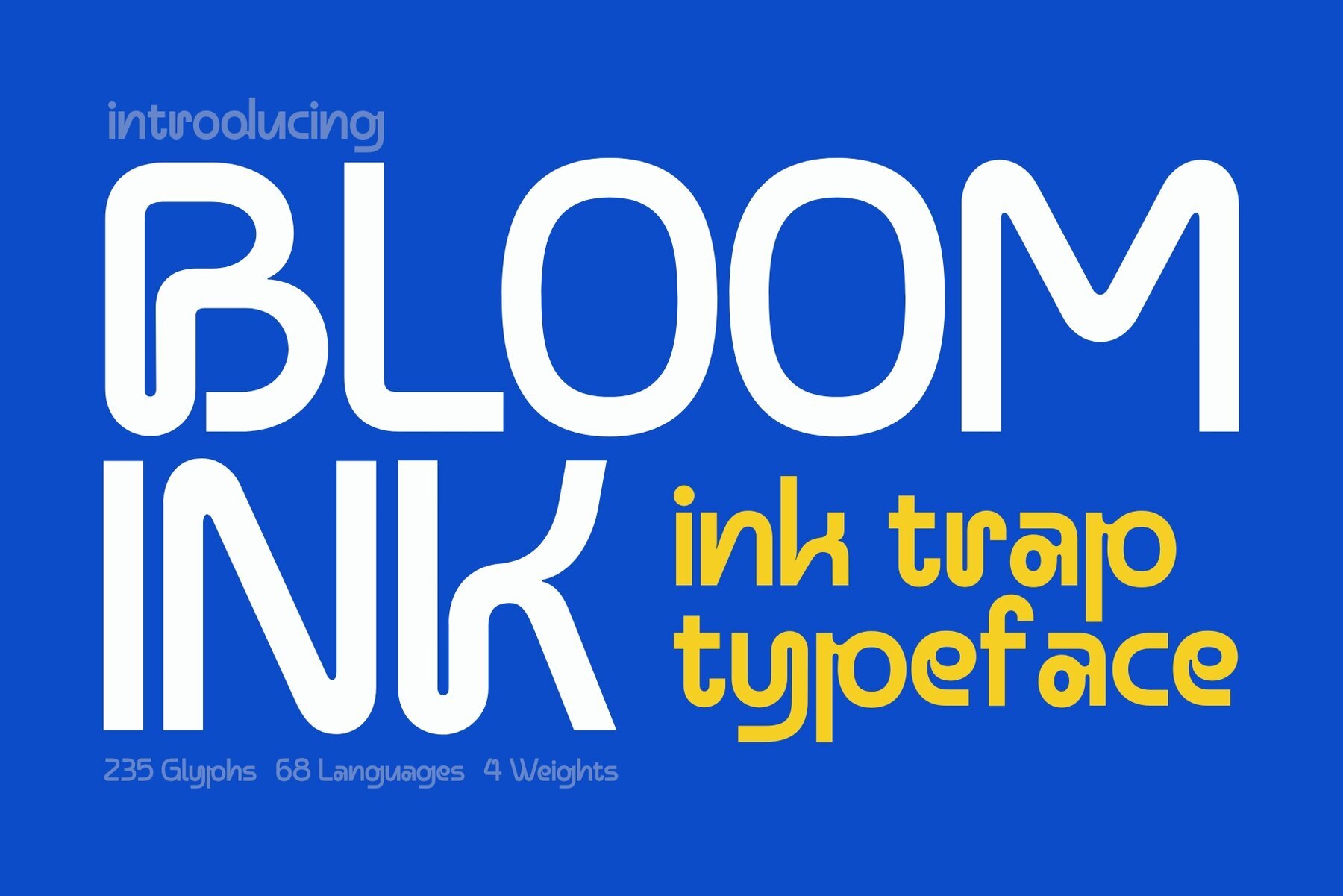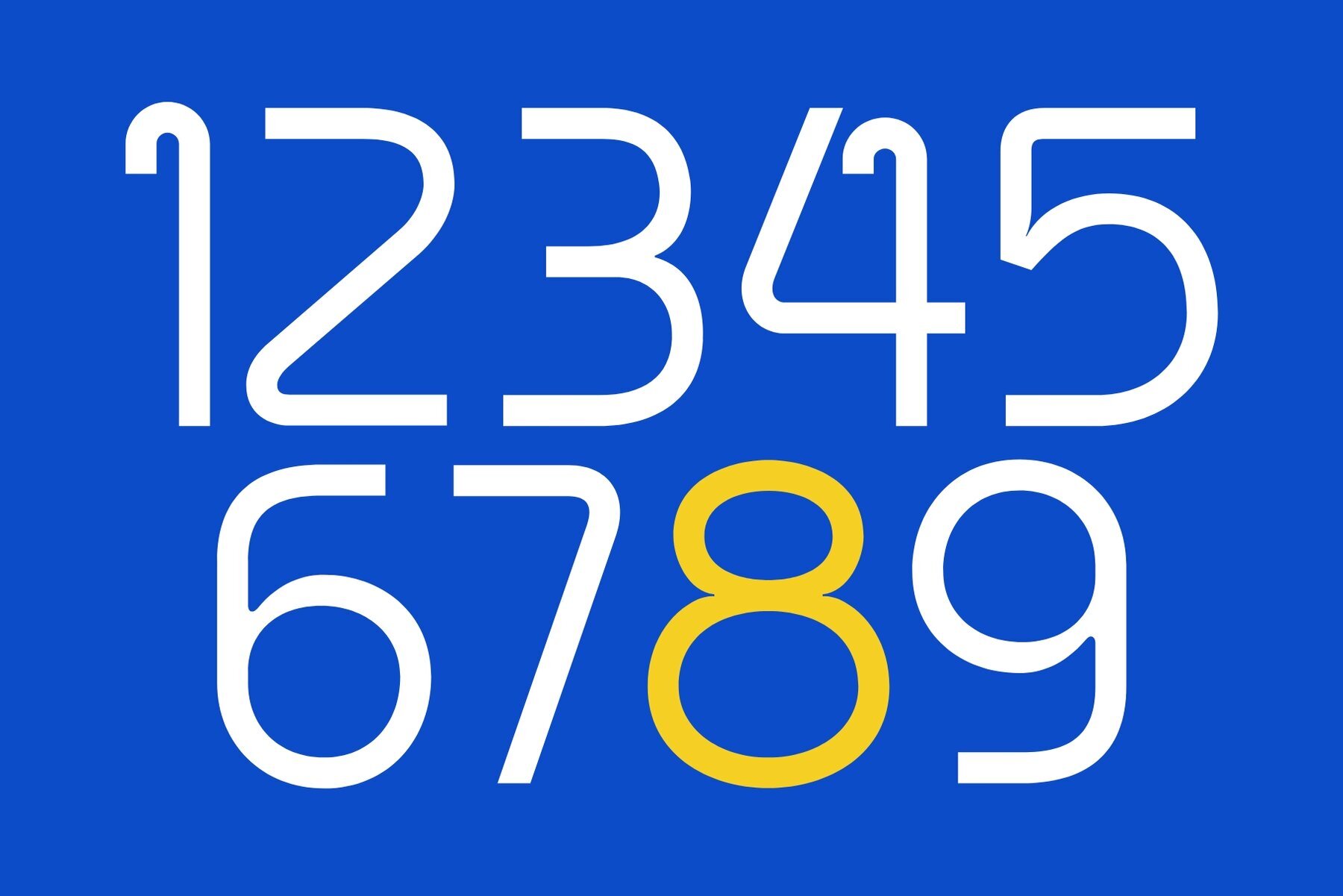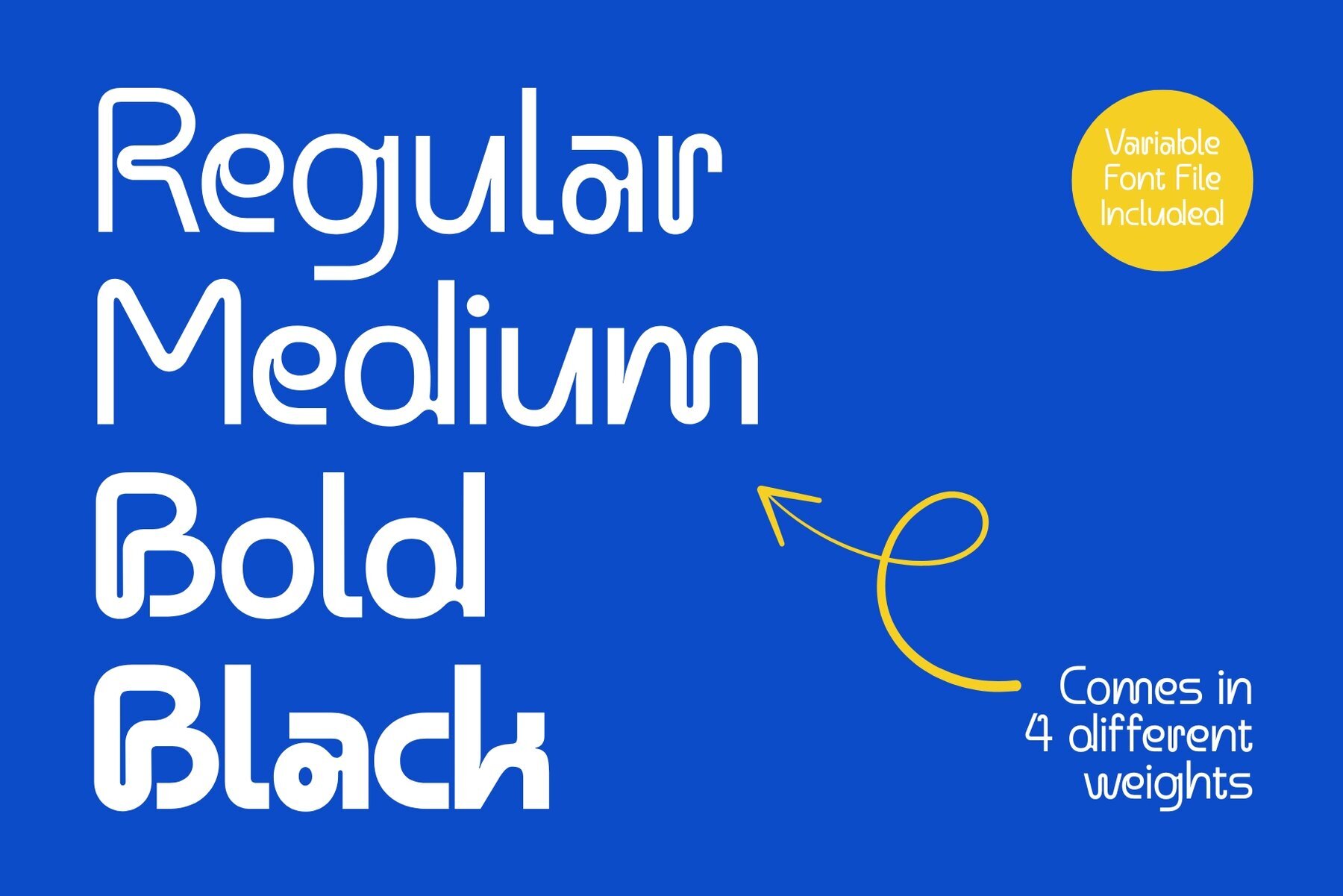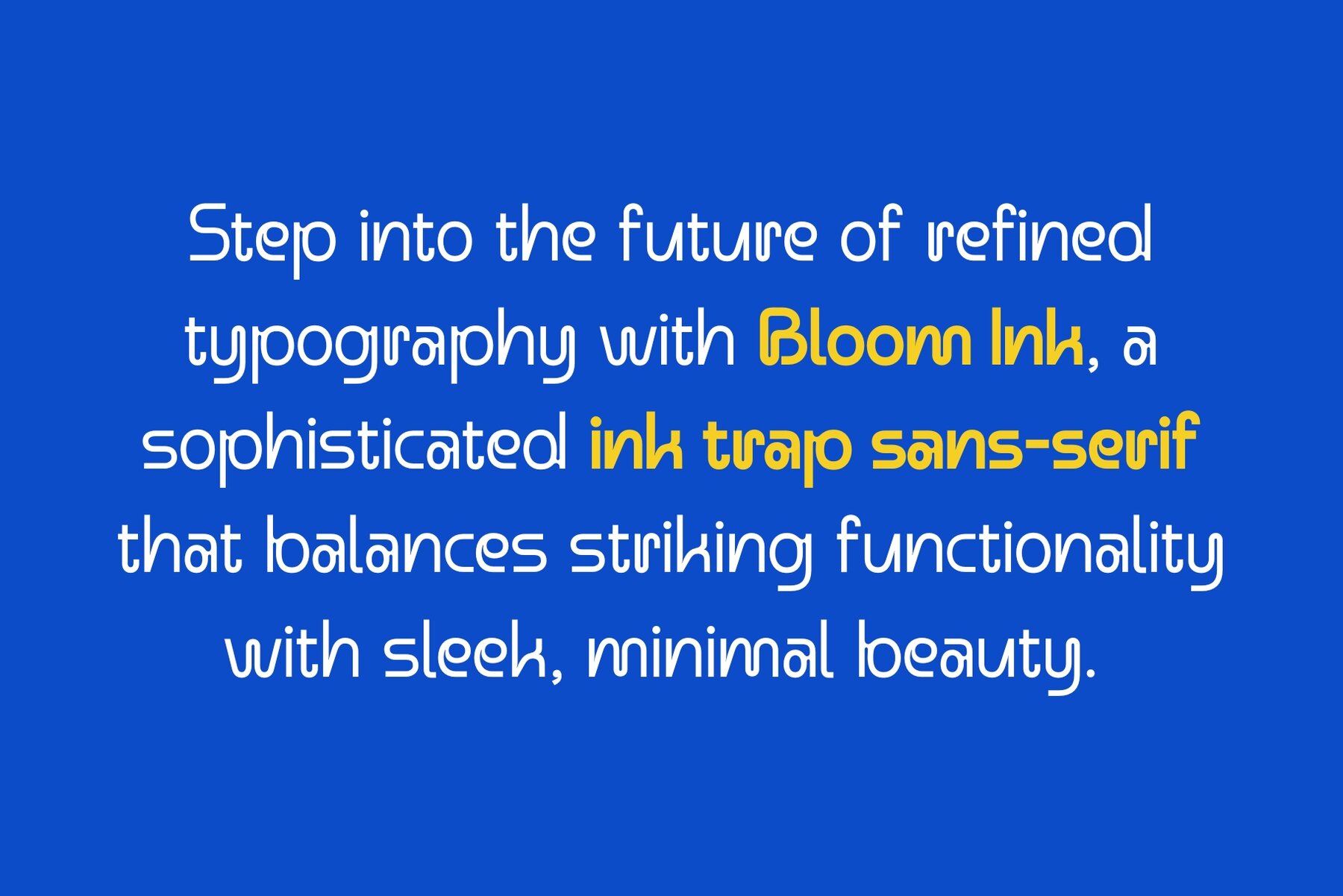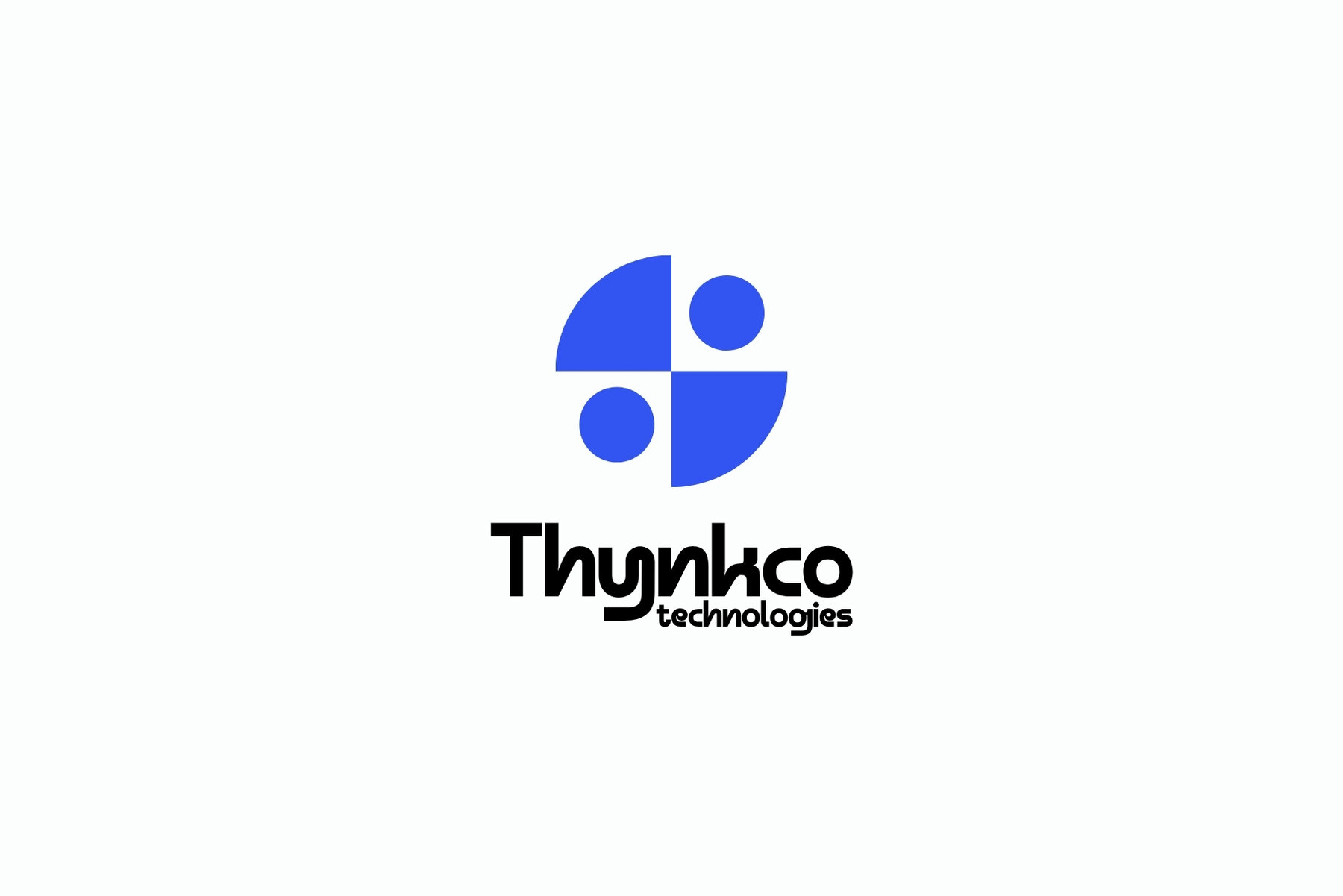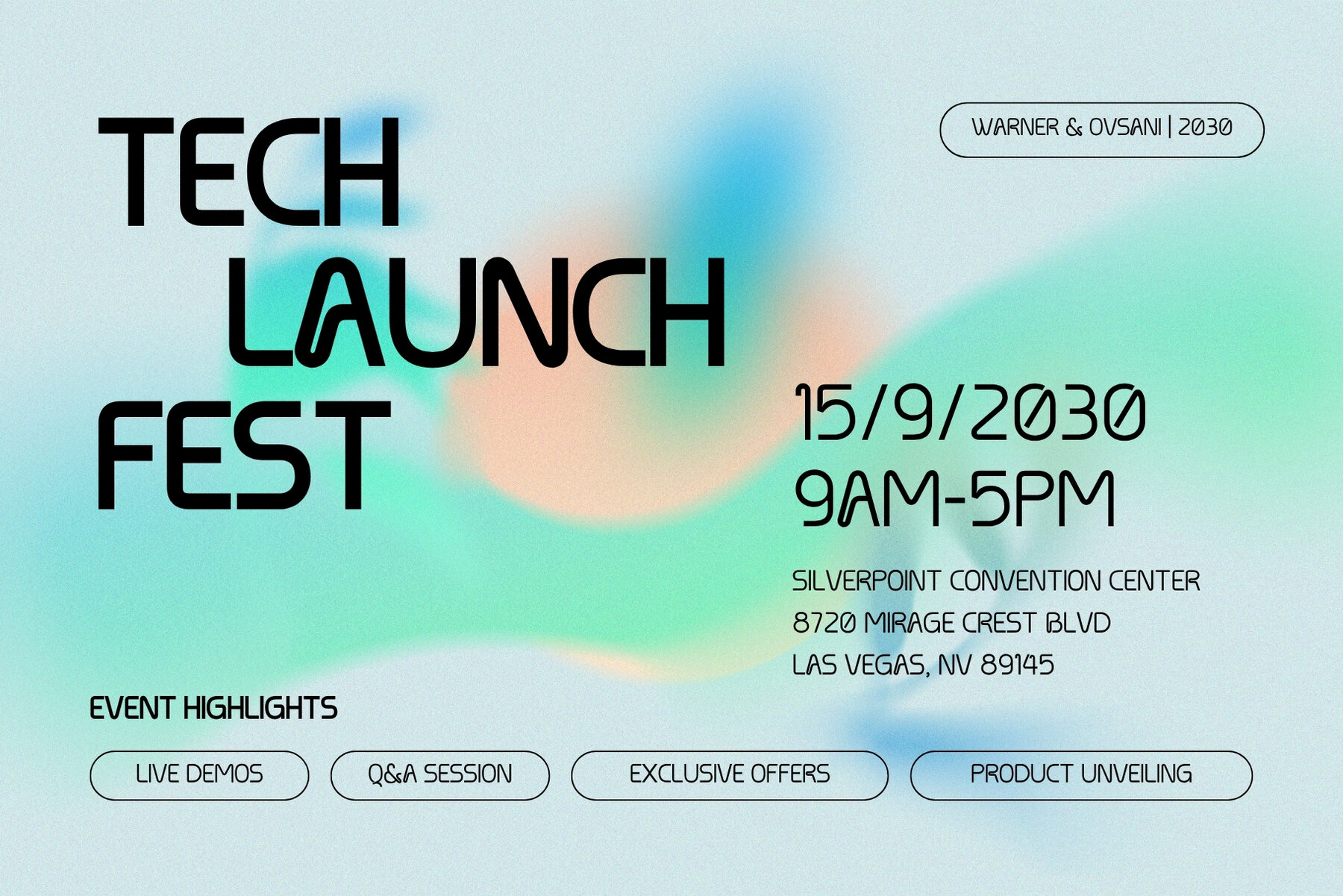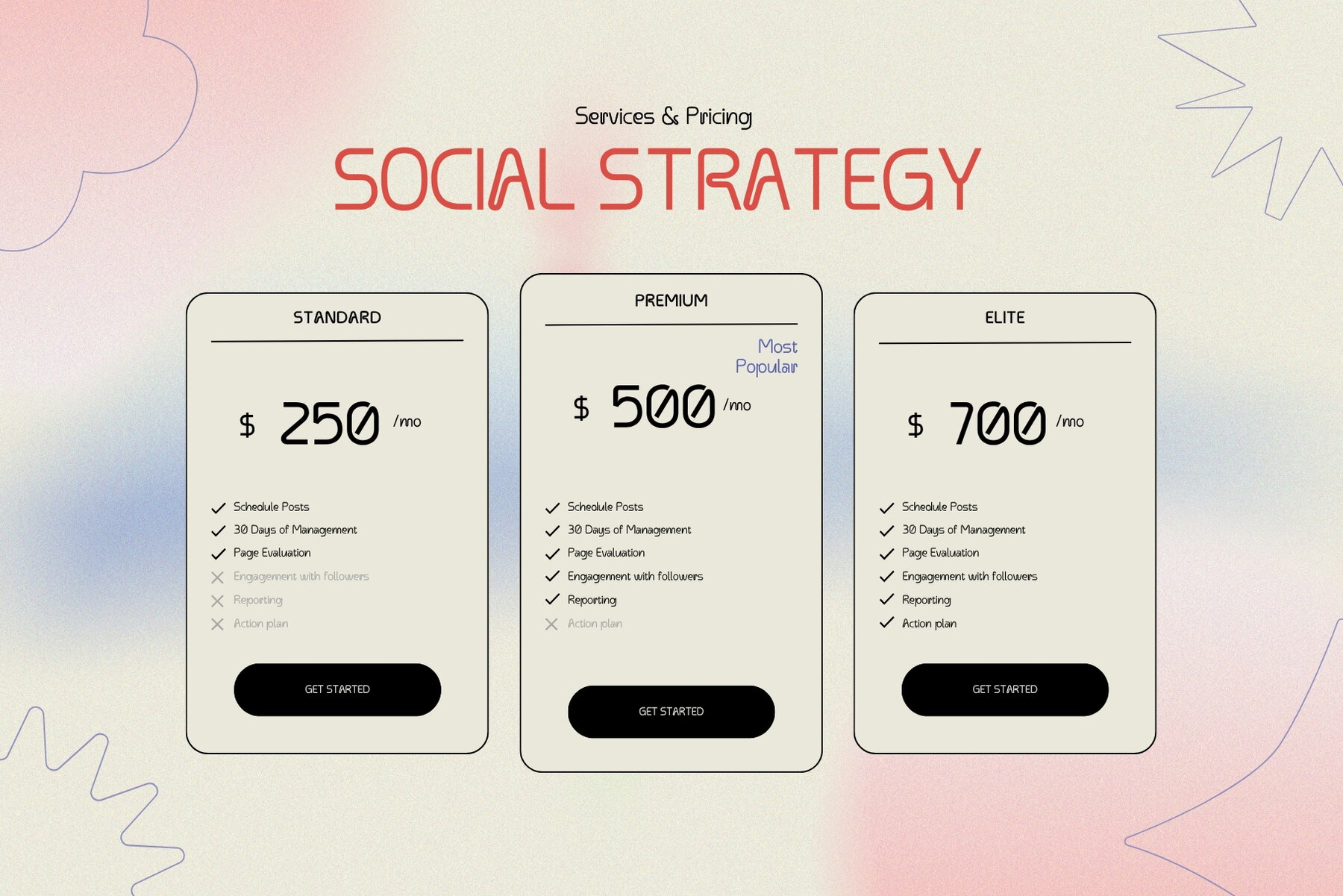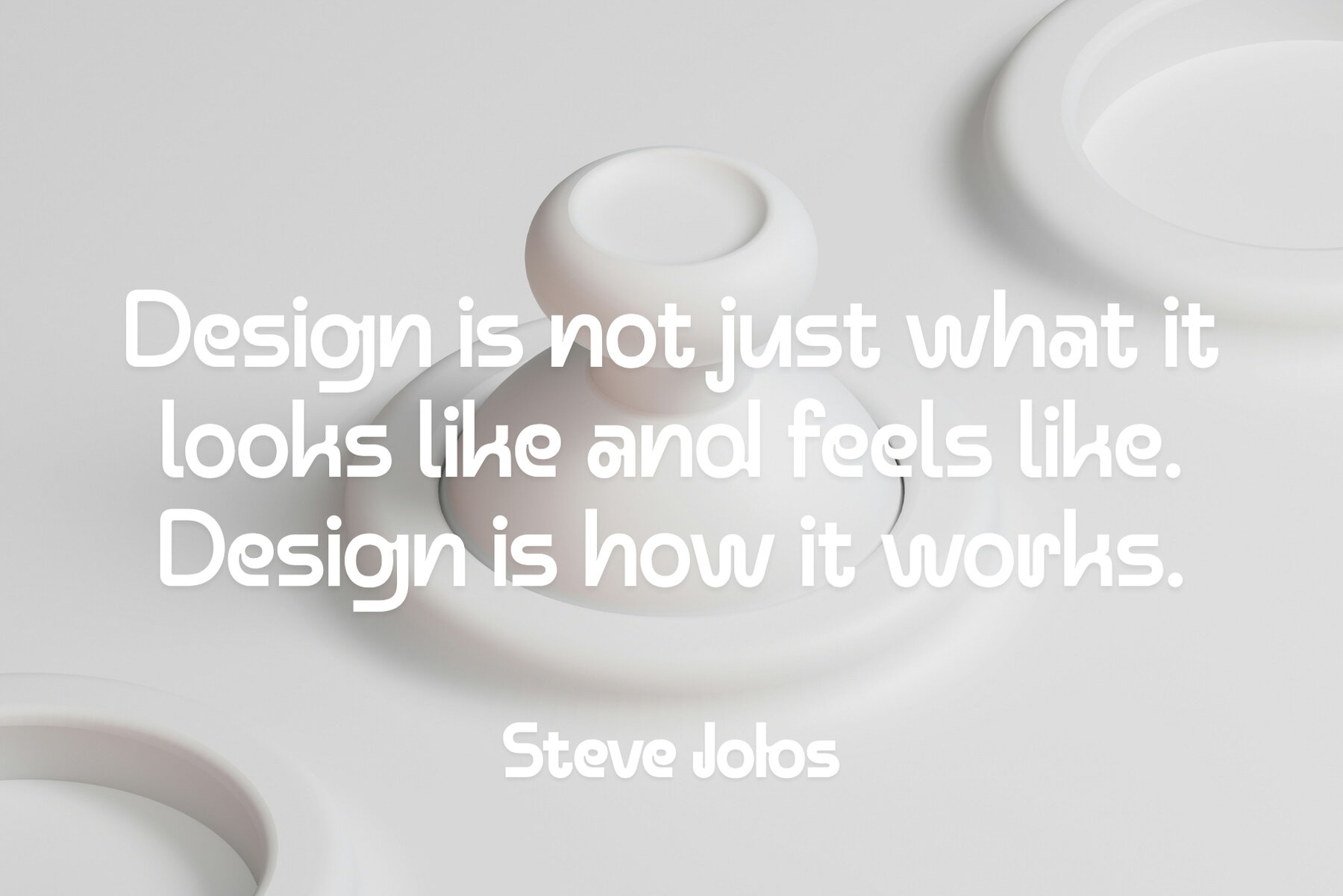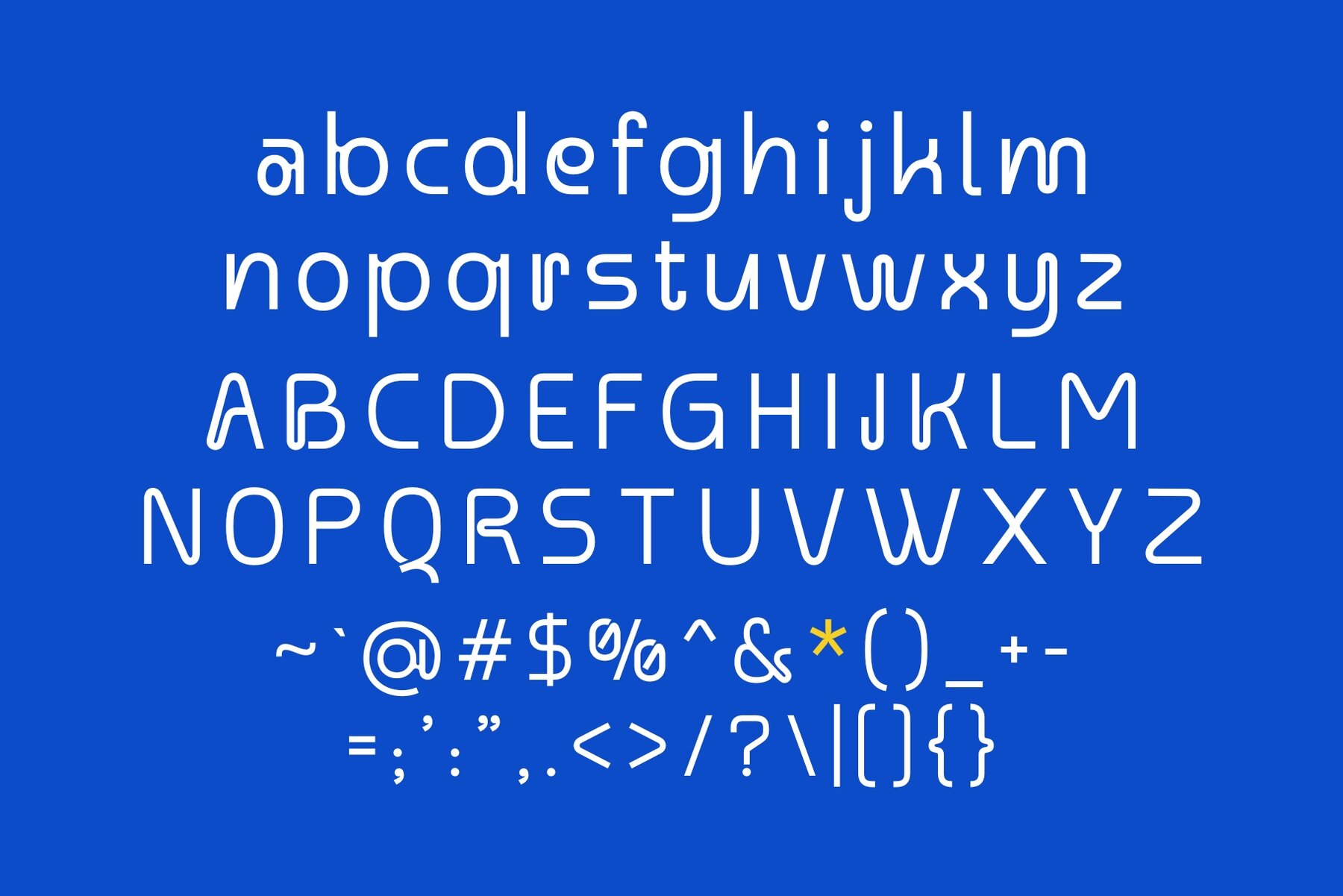
Bloomink Font
Bloom Ink emerges as a refined player in the world of contemporary typography, offering a sophisticated sans-serif experience that combines functional precision with minimalist beauty. Catering to the needs of today's design professionals, Bloom Ink transcends the traditional role of a font, embodying clarity and elegance. With a robust selection of four weights, Bloom Ink empowers designers with control over visual rhythm and tone. Perfect for a range of applications—from clean editorial layouts to stylish branding and high-end packaging—this typeface seamlessly integrates into any creative vision. The carefully crafted ink traps not only pay homage to classical typesetting but also enhance its crisp performance across sizes. This subtle feature ensures razor-sharp edges, making Bloom Ink a sophisticated choice that exudes effortless grace.Bloom Ink: A Modern Sans-Serif with Subtle Ink Traps